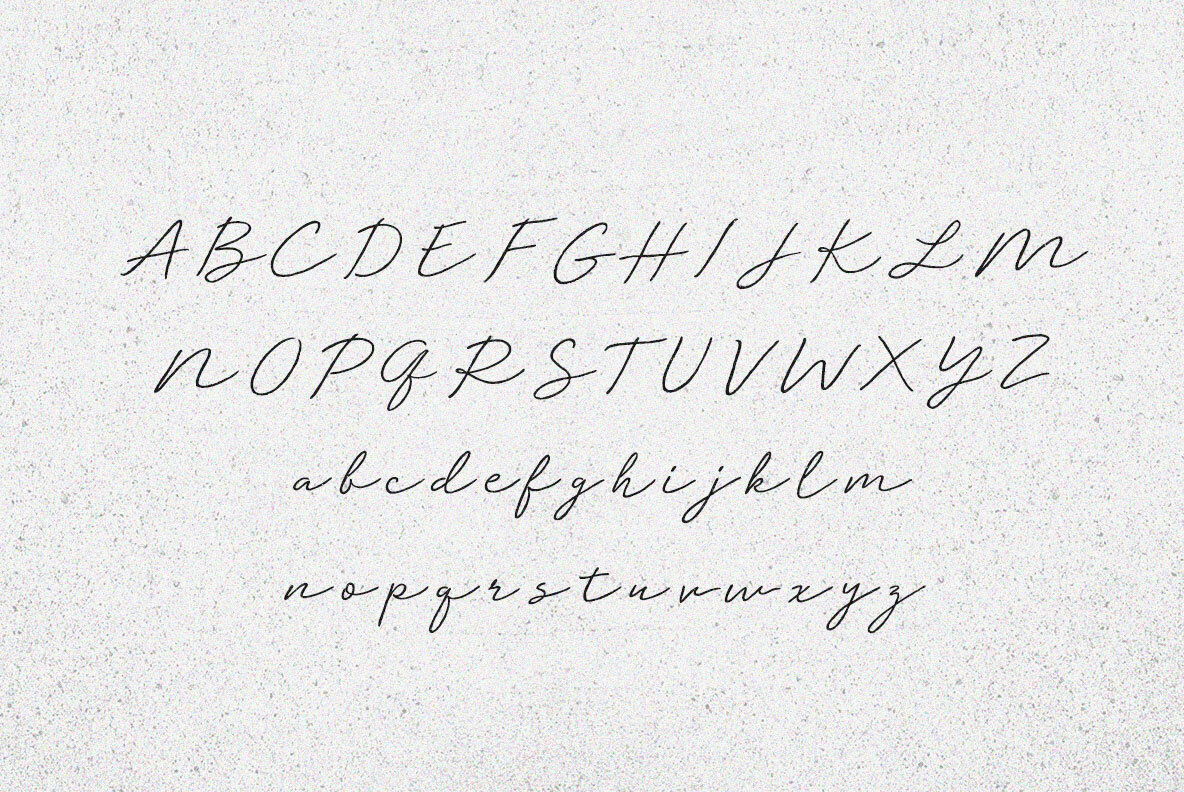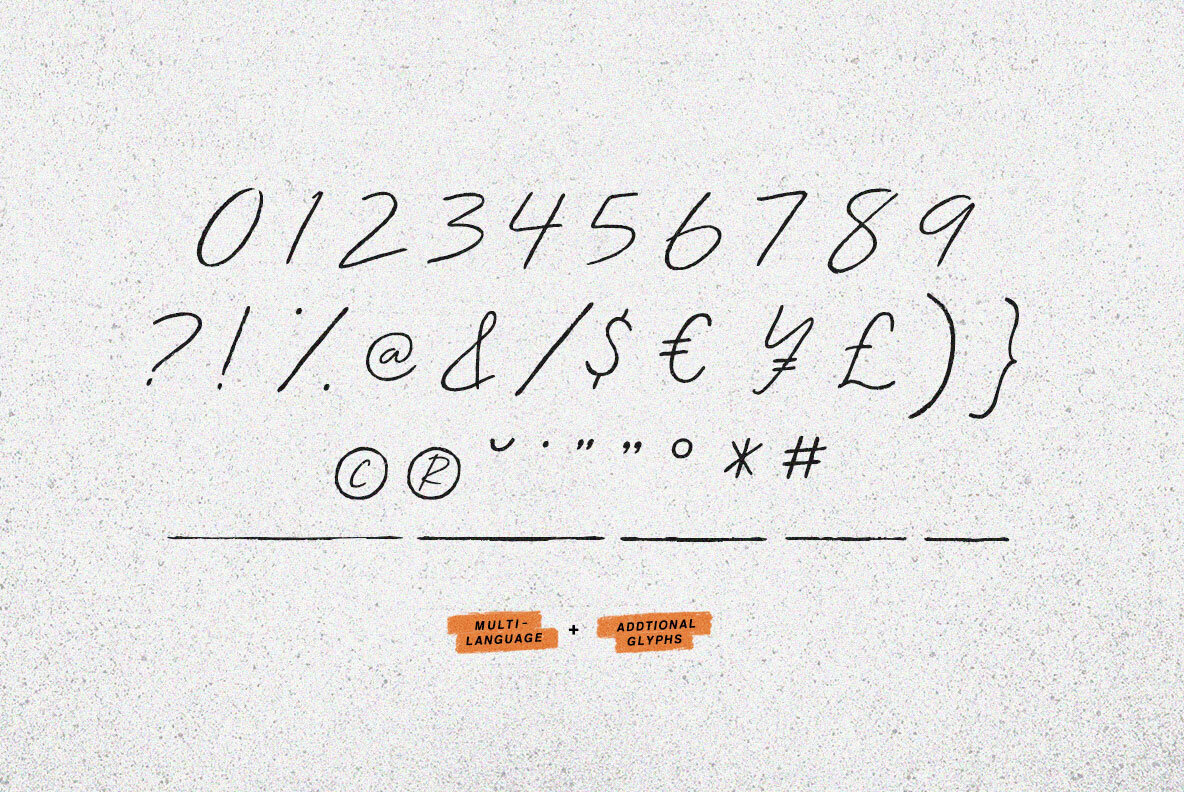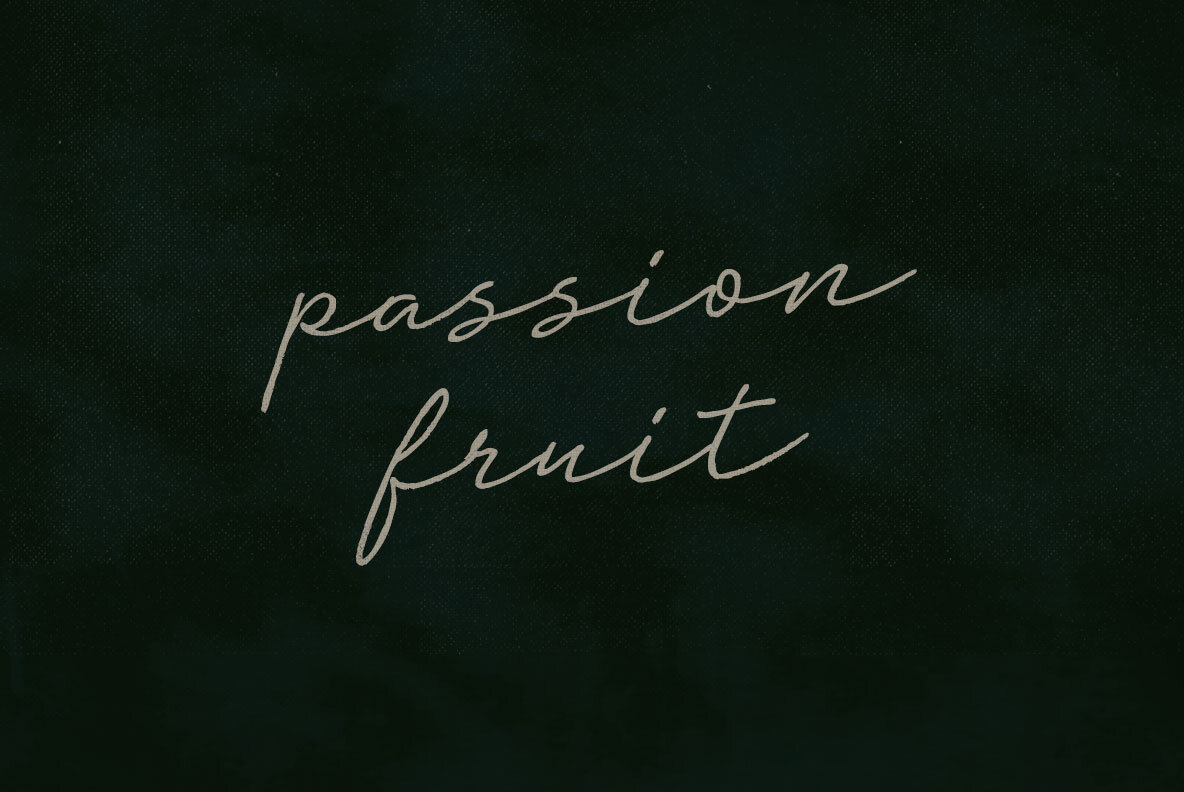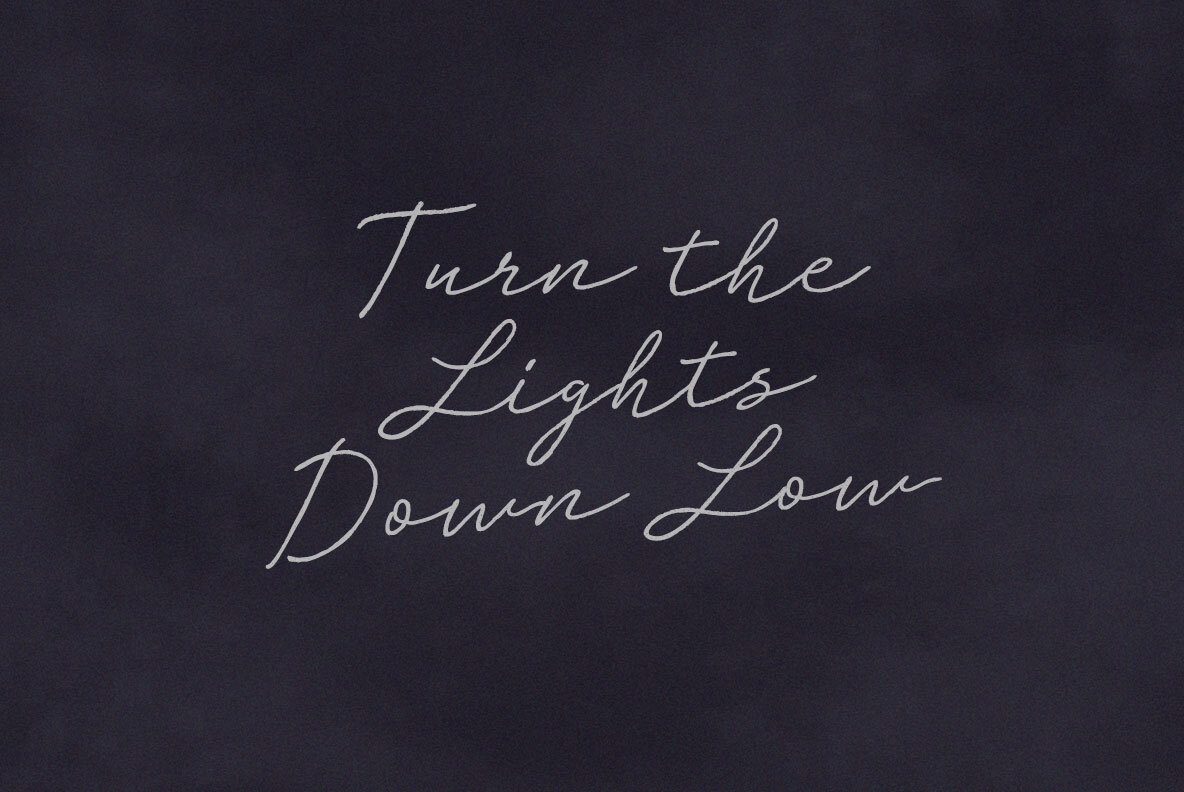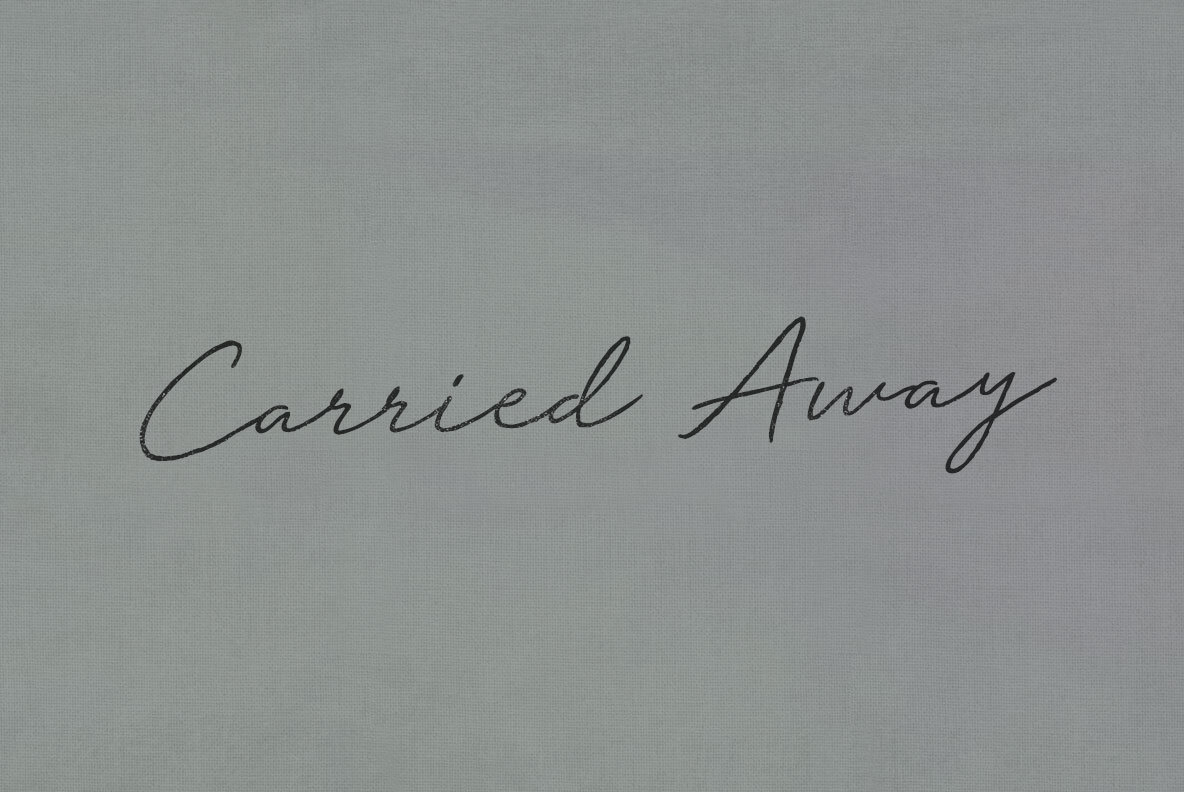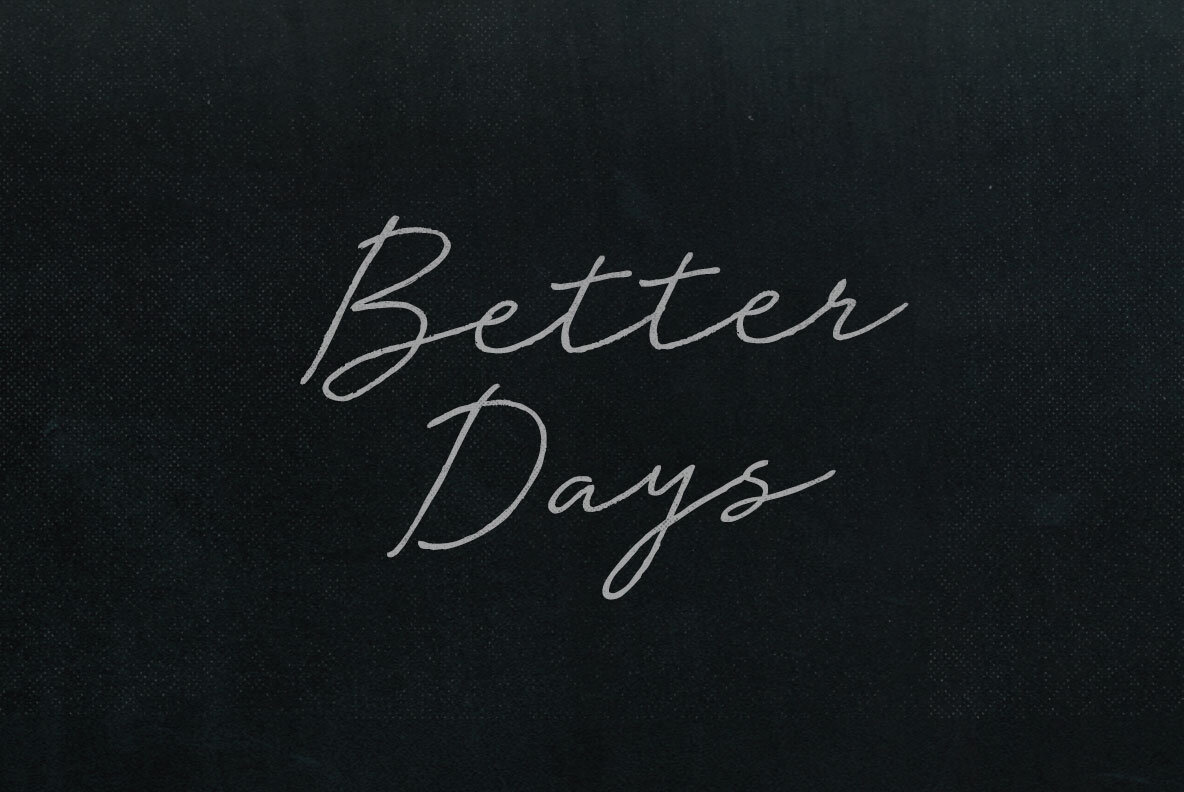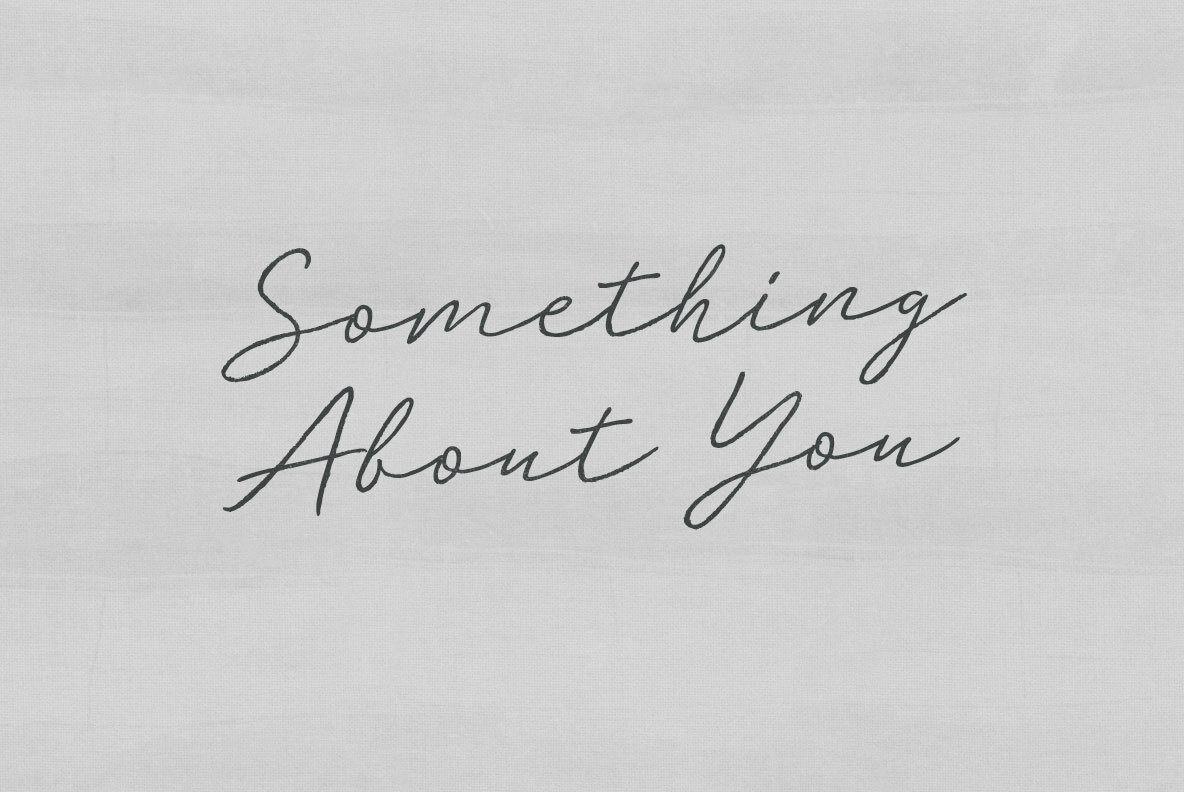
Rough Draft Font
Rough Draft
Here’s the pen, pressed to pre-palimpsest—there’s a first time for everything else—and the Rough Draft howls through plot-holes like the original origin. Margins runneth over ink-stained wrists and a scrawl-covered cover, sketching realities between execution and intention.